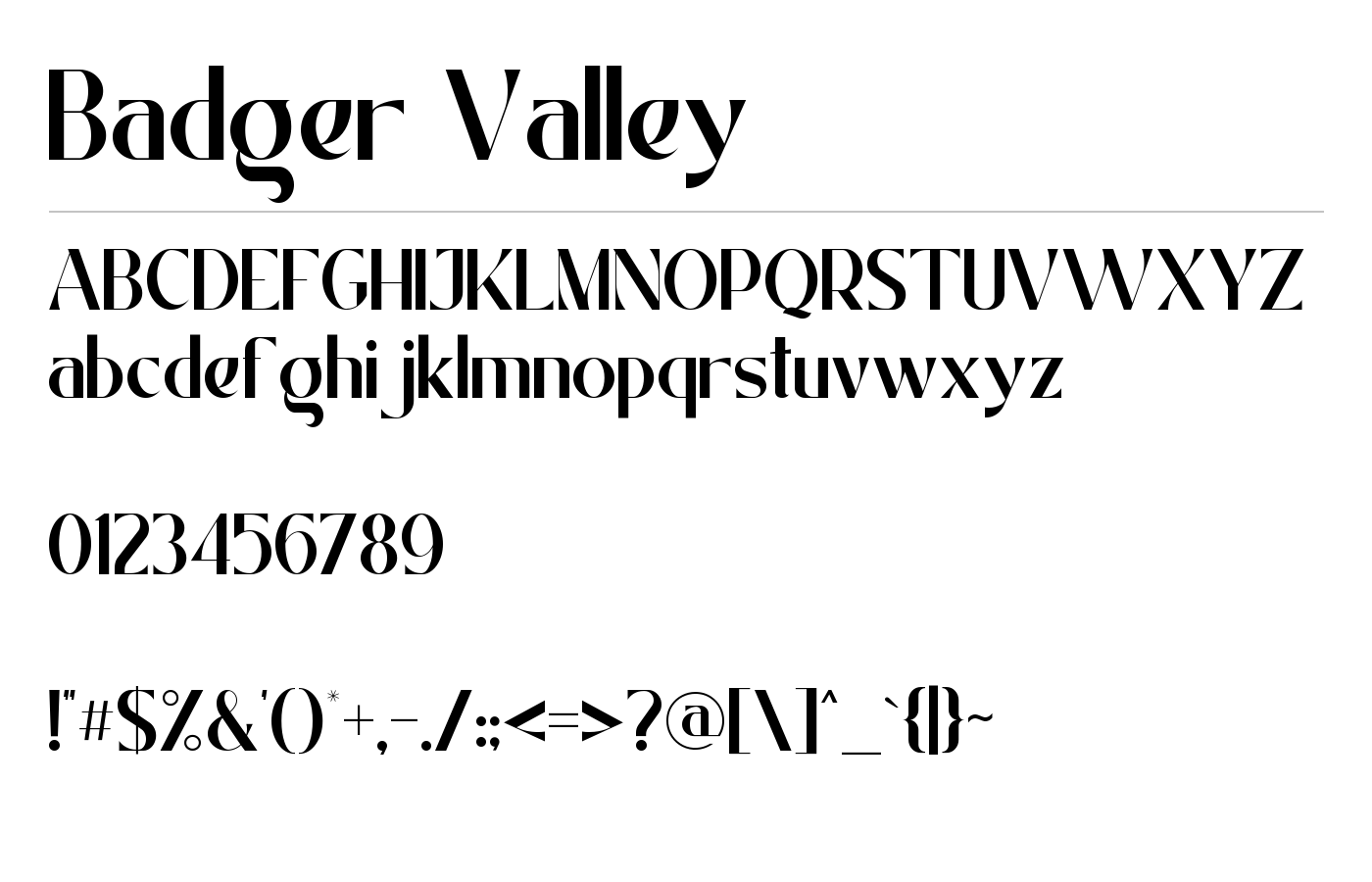
Badger Valley is a striking serif font with modern, high-contrast strokes and a distinctively sharp, elegant look. Its unique letterforms, including stylized terminals and a noticeable vertical stress, give it a fashionable and sophisticated personality, making it ideal for luxury branding, editorial headlines, and stylish packaging where a bold statement is needed. This font works best in display settings, adding a chic, contemporary edge to any design.
Badger Valley Font
About Badger Valley Font